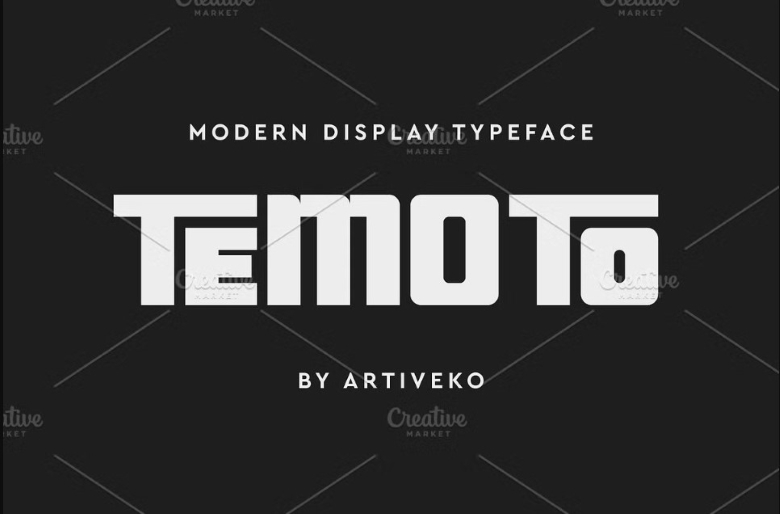
Temoto Font
Temoto is a Powerful Sans Serif font. This typeface lends itself as an ideal option for logo work, branding inititives, travel promotions, layouts on a magazine, beauty care products, product packaging, inspiring quotes or as a stylish text layer over any picture.
Temoto Sans Serif Font